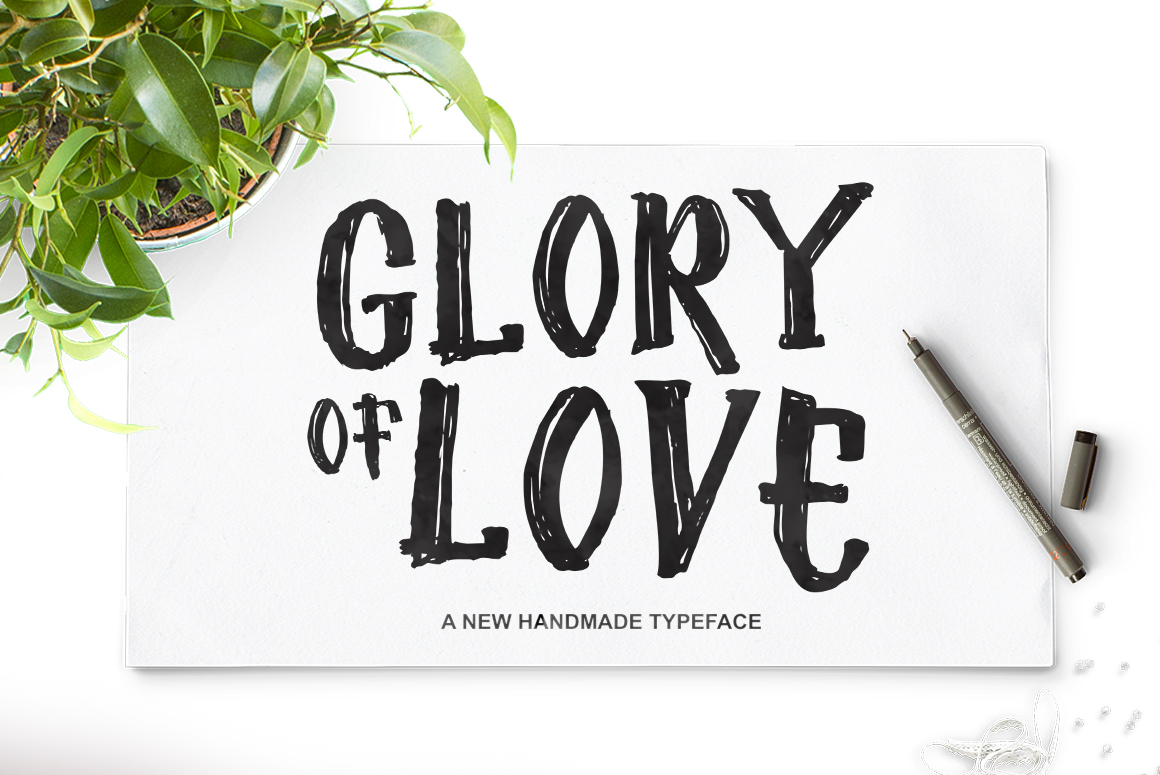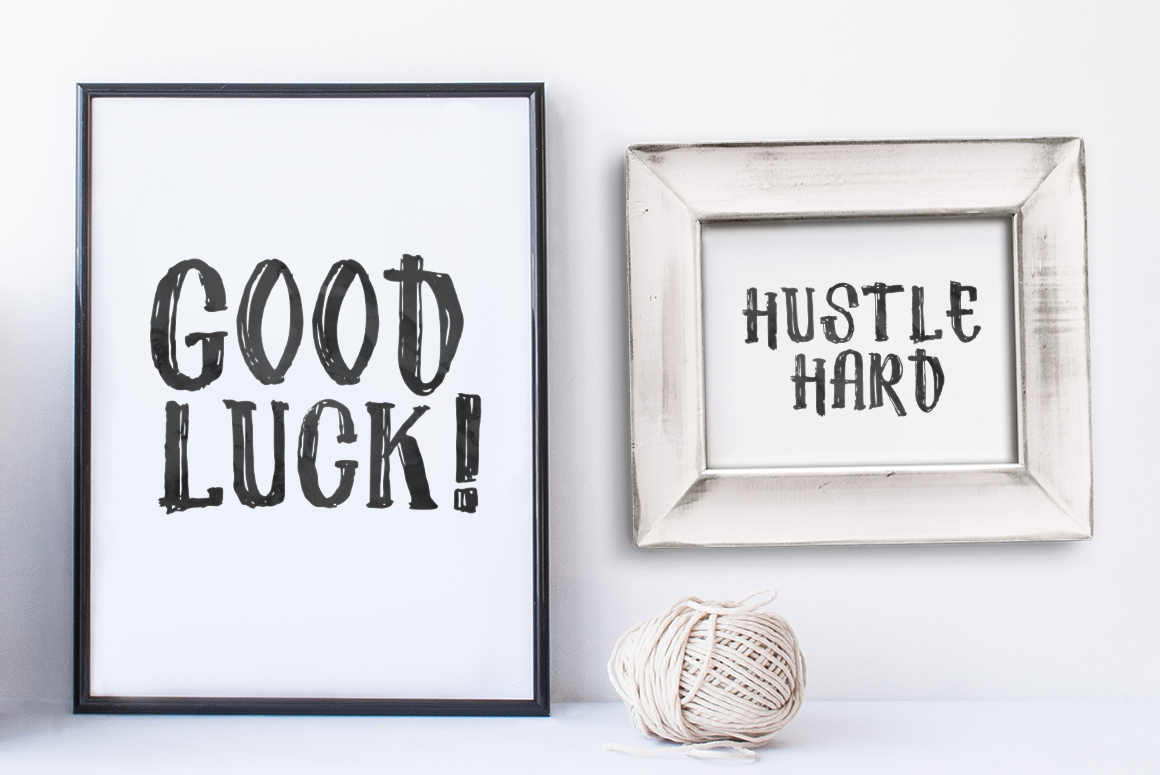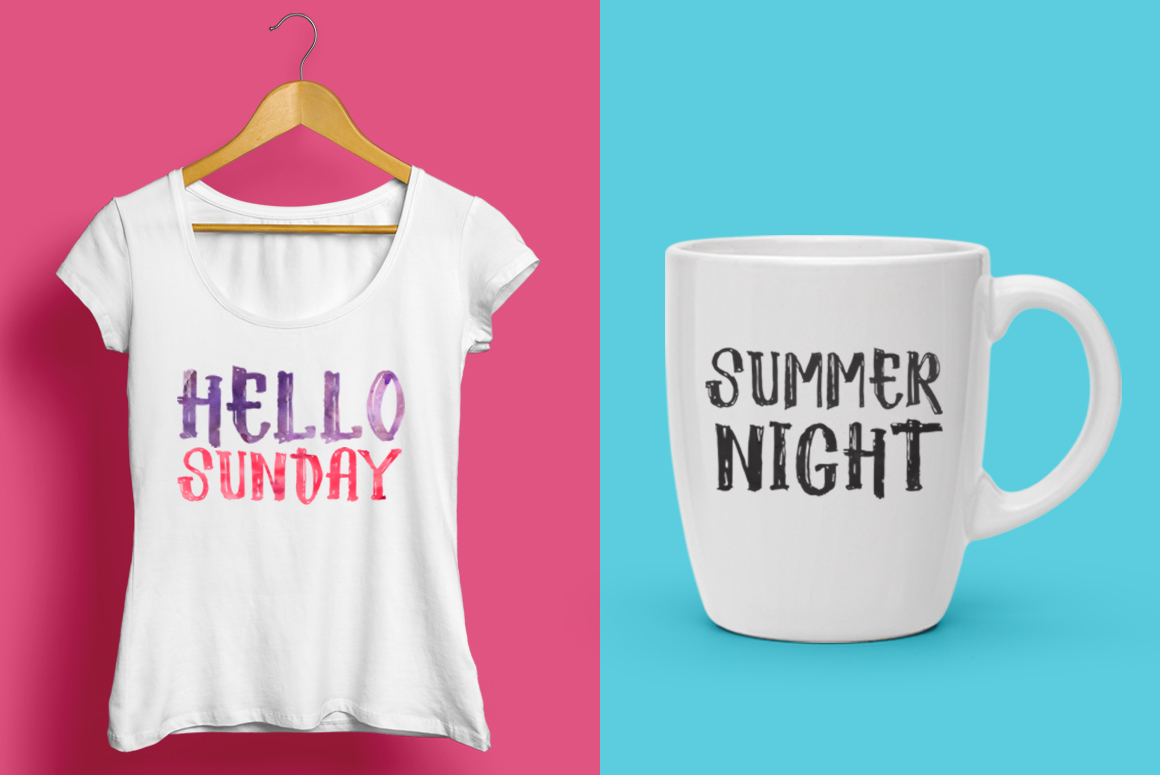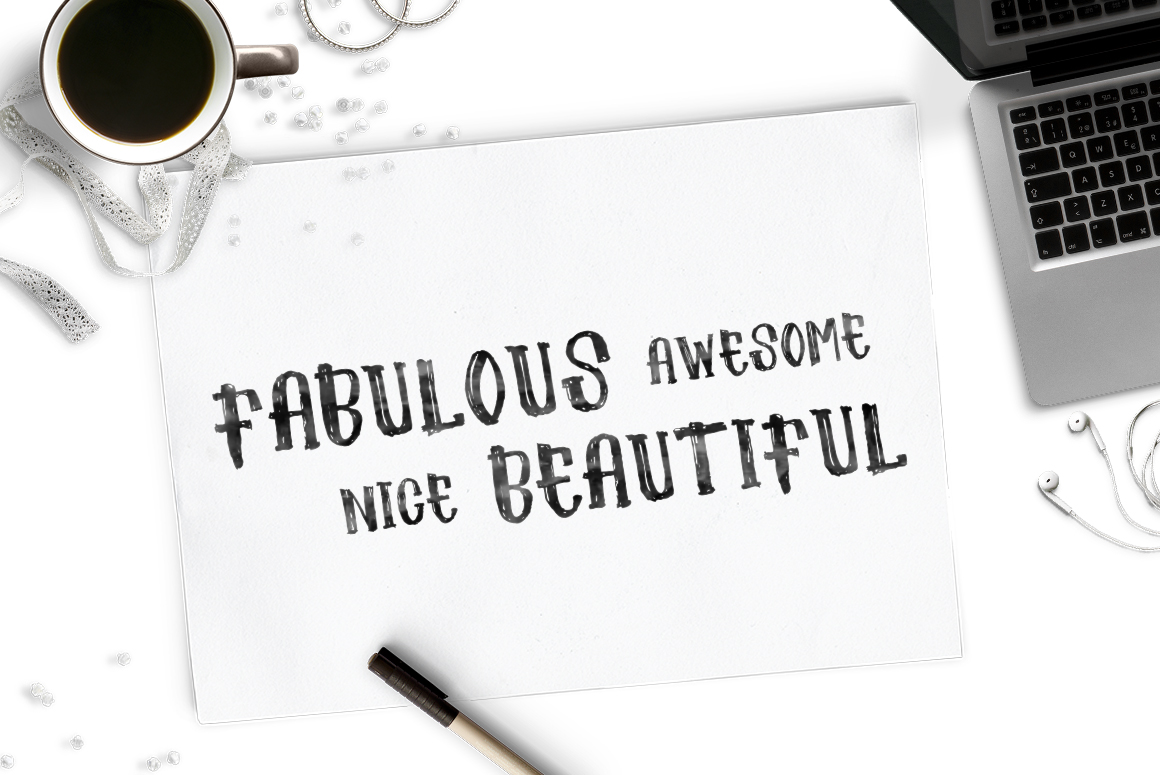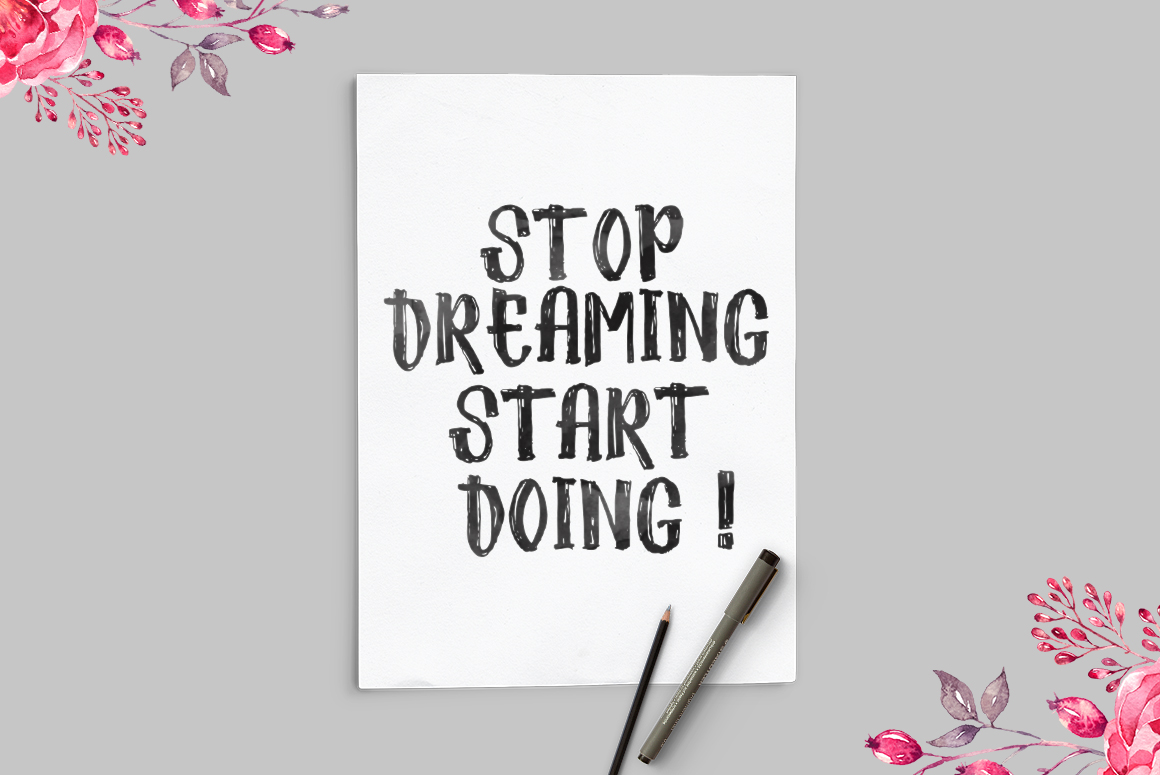
Glory of Love Font
About Glory of Love Font
Made to resemble the thick strokes of a marker, Glory of Love is a lighthearted typeface that can add some character and warmth to your designs.
Add Glory of Love, a great handmade and variable humanist styled font.